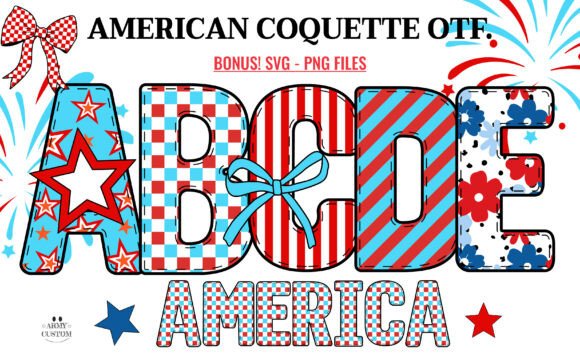
Unleashing the Spirit of Patriotism with the American Coquette Font
I’ll never forget the summer I spent countless hours crafting the perfect Memorial Day project. As a designer, I was determined to create something that would make my client’s eyes light up. But, as I scrolled through font after font, I just couldn’t find the right fit. That was until I stumbled upon the American Coquette Font – a game-changer for any creative looking to infuse their work with a dash of patriotism.
A Font that Embodies the American Spirit
The American Coquette Font is more than just a collection of letters; it’s a tribute to the heart and soul of America. With its unique design and inspiration drawn from the Land of the Free, this font is sure to bring an unmatched level of patriotism to your creative projects. Whether you’re a designer, crafter, or hobbyist, this font is a must-have for anyone looking to add a touch of American charm to their work.
• ✅ Unique and eye-catching design that sets it apart from other fonts
• ✅ Includes OpenType features, glyphs, and stylistic alternates for added versatility
• ✅ Perfect for a variety of projects, from Memorial Day crafts to everyday designs
The Story Behind the American Coquette Font
The American Coquette Font was inspired by the rich history and cultural heritage of the United States. Its designer sought to create a font that would capture the essence of American aesthetics and bring a touch of patriotism to creative projects. With its unique design and versatile features, this font is sure to become a staple in any design toolkit.